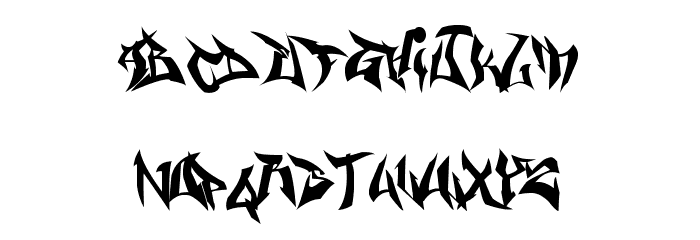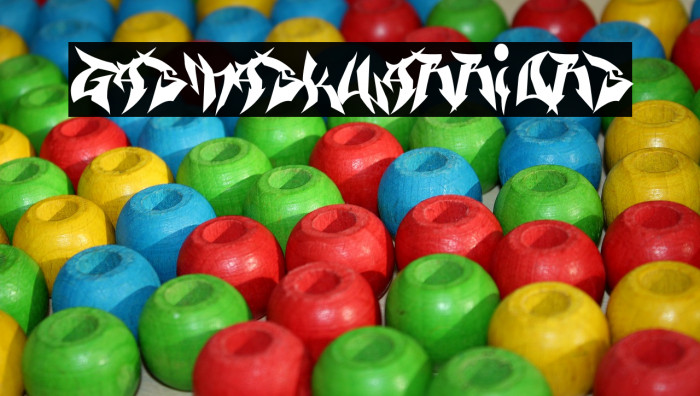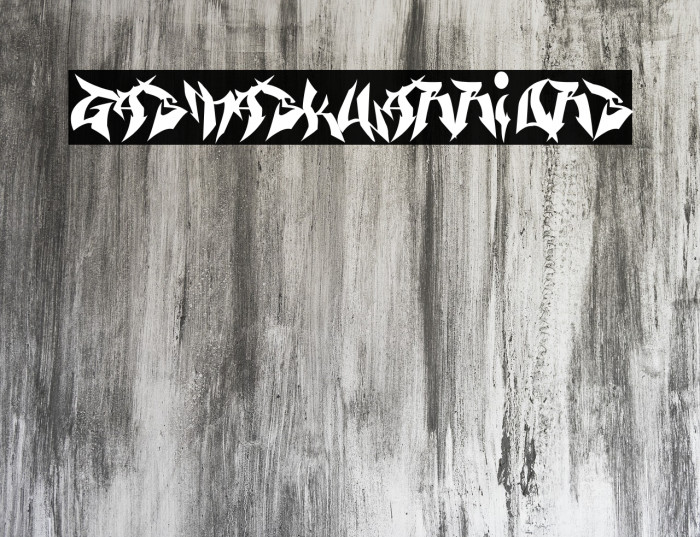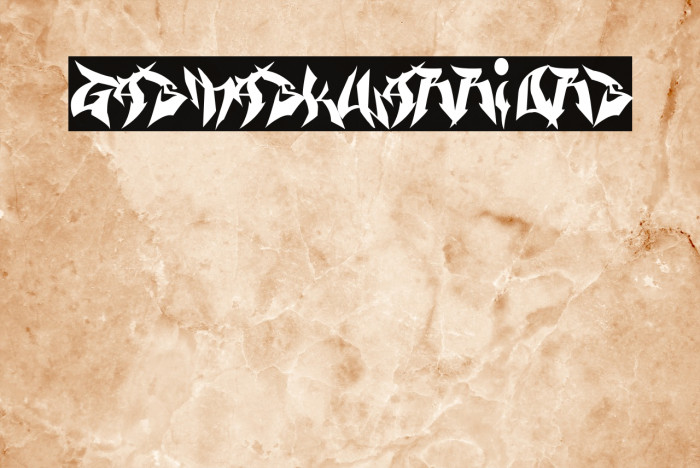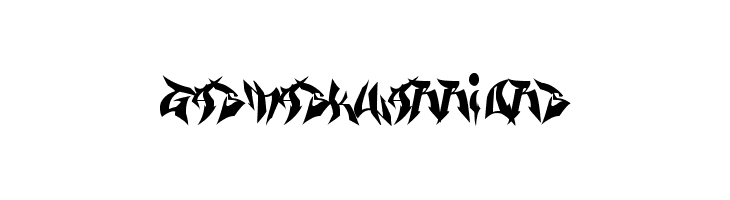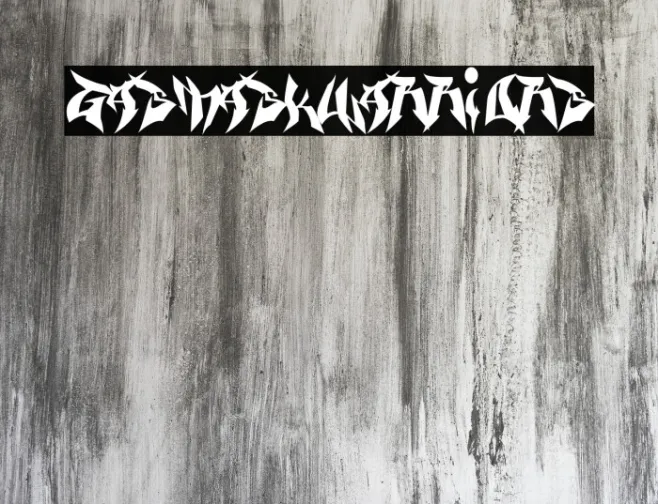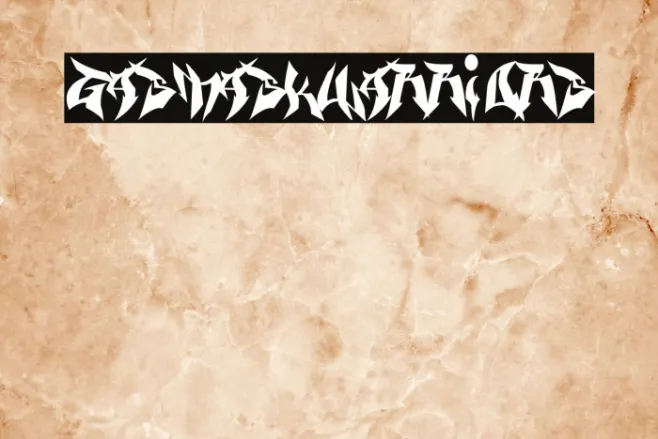
GasMaskWarriors Font
This font exhibits a bold, aggressive style with sharp, angular lines and a graffiti-like appearance. The characters are highly stylized, featuring jagged edges and a dynamic flow that suggests movement and energy. The uppercase and lowercase letters maintain a consistent visual theme, emphasizing a rebellious and urban aesthetic. The numbers and special characters are equally distinctive, integrating seamlessly with the overall design. This font is ideal for projects that require a strong, impactful visual presence, such as street art, music album covers, or edgy branding materials.
A bold, graffiti-inspired font with sharp, angular lines and a rebellious aesthetic.
- Proposed Projects: Street art, music album covers, edgy branding materials, posters, and urban-themed designs.
- Character Spacing: Tight
- Overall Style: Urban, Rebellious, Graffiti
- Use Case: Logos, Posters, Headlines